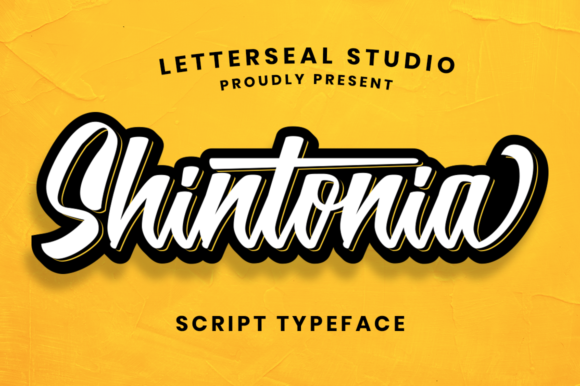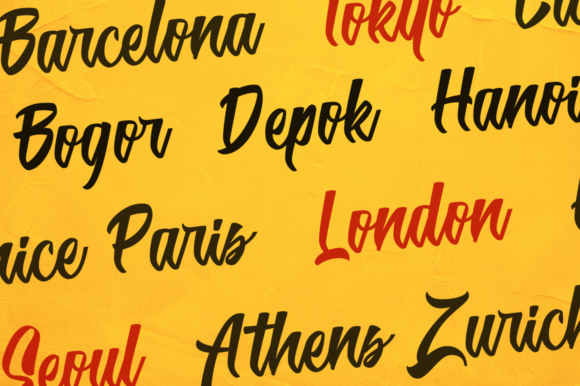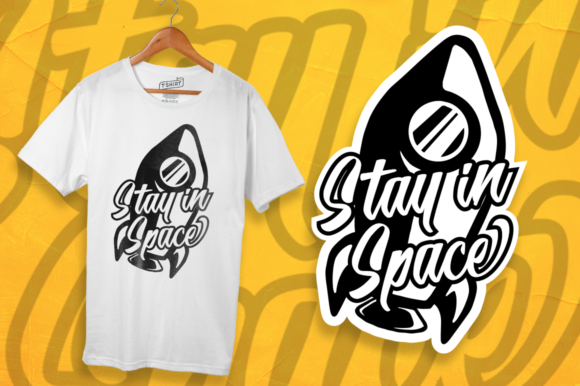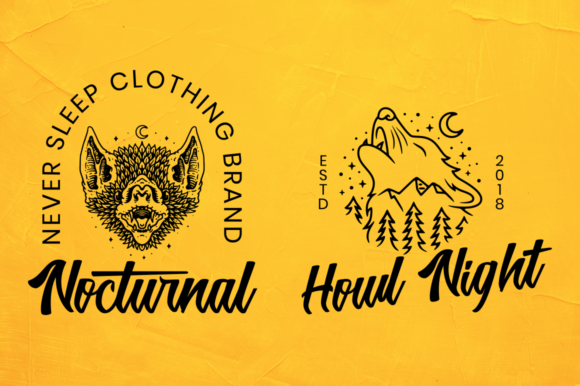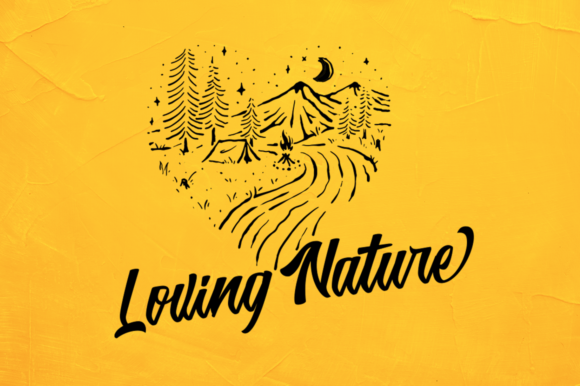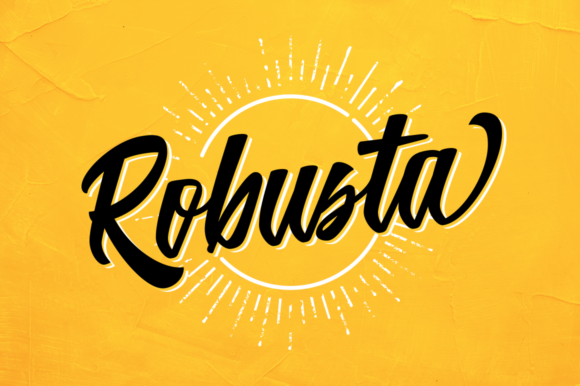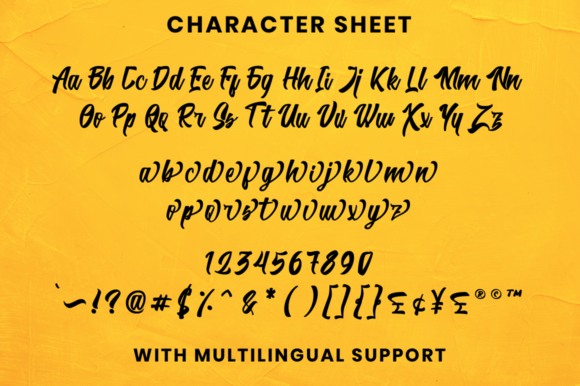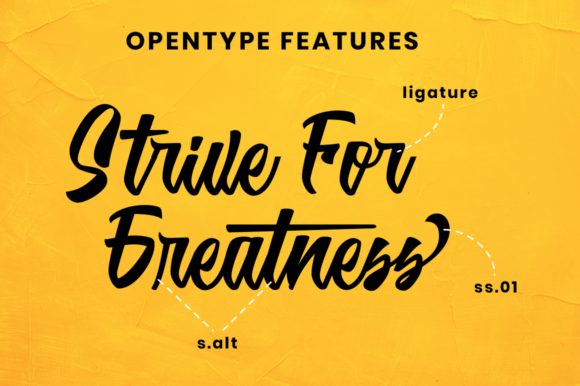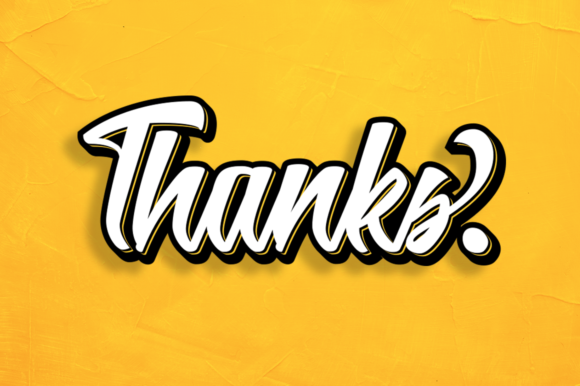
Shintonia Font
About Shintonia Font
Shintonia is a font that exudes both charm and elegance, making it the perfect choice for a wide range of design projects. With its delicate and flowing style, Shintonia adds a touch of sophistication and beauty to any creative endeavor, making it stand out with its timeless appeal.
When used on wedding invitations, Shintonia sets the tone for a romantic and memorable celebration of love. Its graceful curves and elegant strokes add a sense of refinement and class, creating an invitation that leaves a lasting impression on guests and captures the essence of the special day.
For thank you cards, Shintonia adds a personal and heartfelt touch to expressions of gratitude. Its handwritten charm conveys sincerity and warmth, making each thank you note a cherished memento for recipients.
In quotes and greeting cards, Shintonia elevates the written word, turning simple phrases into captivating messages. Its flowing lines create a sense of harmony and balance, making every sentiment resonate with readers and leaving a lasting impact.
In the realm of business, Shintonia shines on logos and business cards. Its elegant and professional appearance adds a touch of sophistication to brand identities, creating a lasting impression on potential clients and partners.
Beyond physical prints, Shintonia enhances the digital world as well. In social media posts and graphics, it infuses content with elegance and charm, captivating audiences and leaving a positive and lasting impression.
With its versatility and elegance, Shintonia becomes an indispensable tool in the hands of creators and designers. Whether it’s for formal or informal projects, its charm and grace elevate each design, making it truly remarkable.
From the most significant events to the smallest gestures, Shintonia adds a touch of class and elegance, making every design a work of art. Its timeless appeal and handwritten beauty are sure to enchant both creators and recipients alike.
So, embrace Shintonia and let its charm and elegance transform your designs. Whether it’s wedding invitations, thank you cards, quotes, greeting cards, logos, or any other creative project, Shintonia will add that extra touch of beauty and sophistication, making your creations truly stunning and memorable.